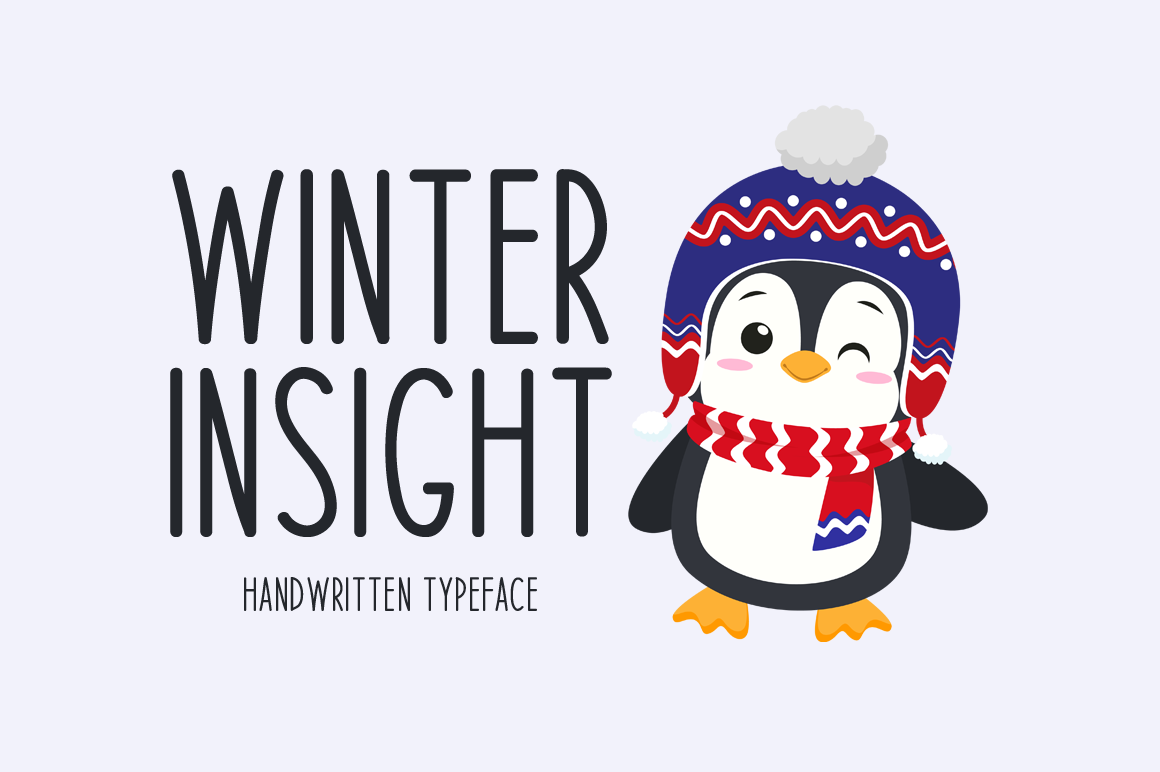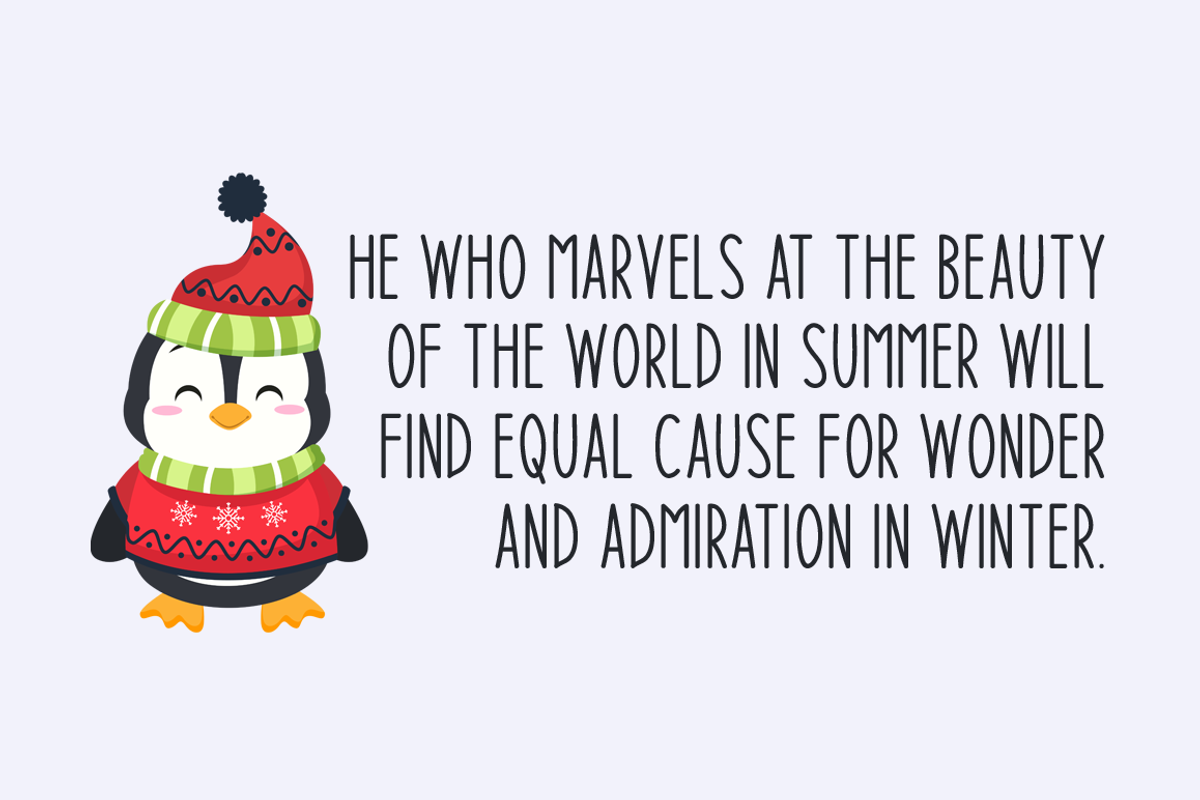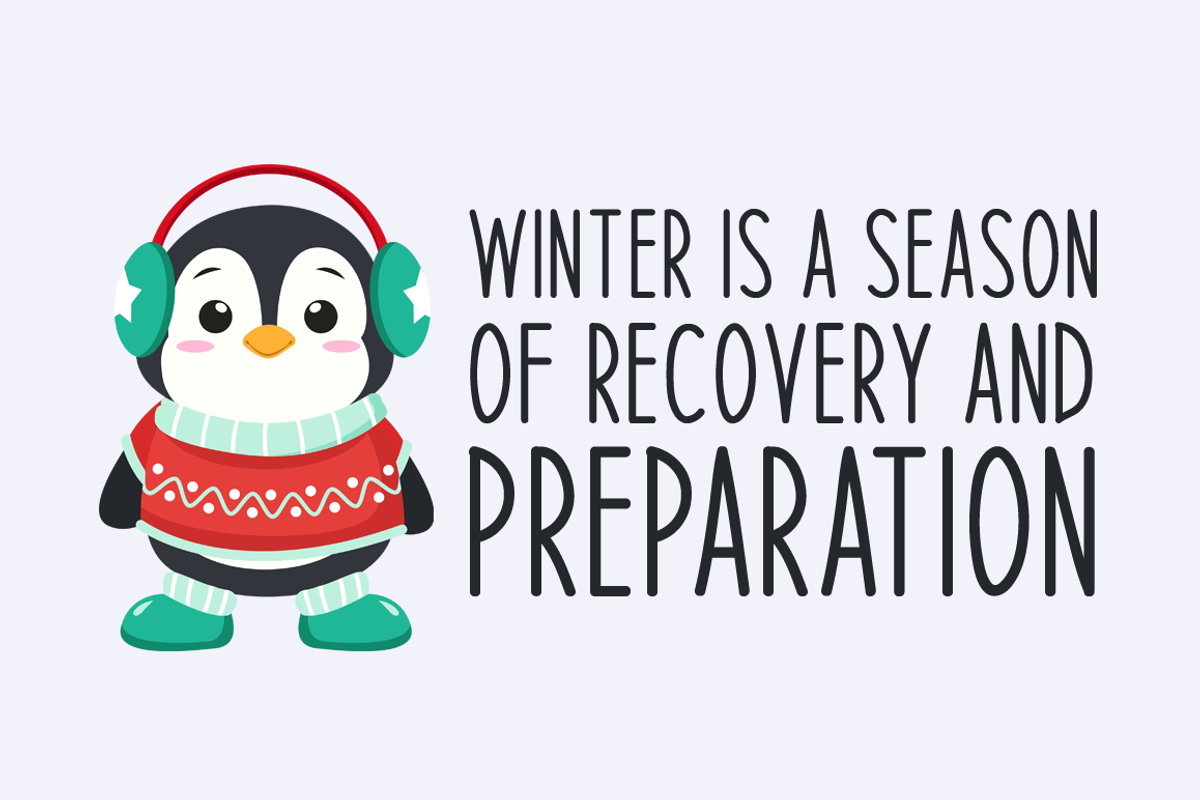
Winter Insight Typeface
Introducing Winter Insight!
Winter Insight is a simple and neat sans serif font. Its natural and unique style makes it incredibly fitting to a large pool of designs. The only limit is your imagination!